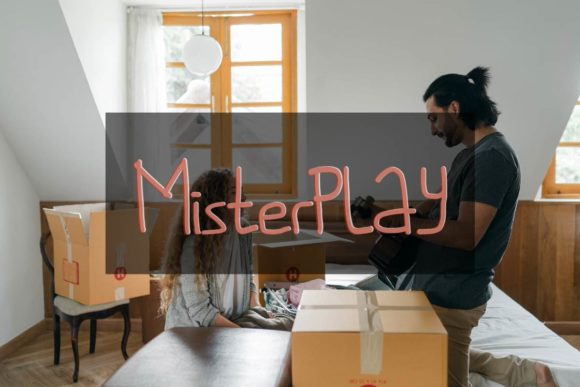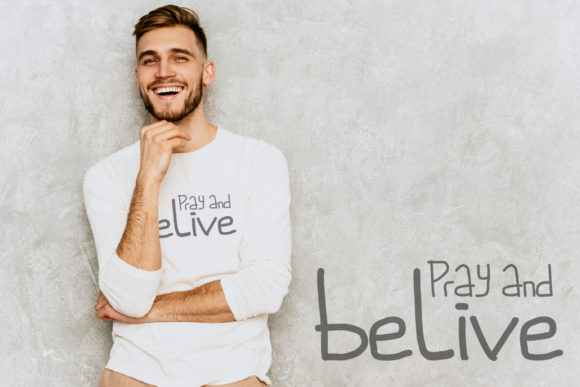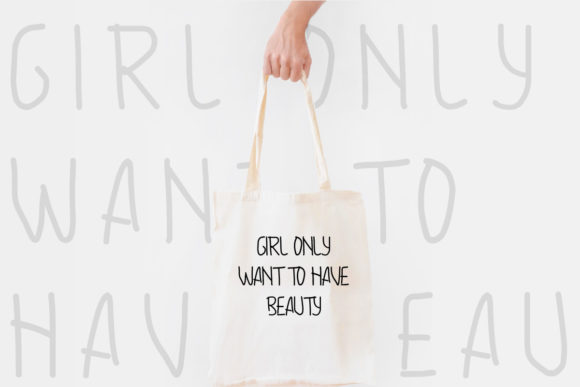
Introduction to Misterplay Font
Misterplay is a cute and simple lettered handwritten font that can be used for all chalkboard quotes or teaching material.
Its authentic look will add a personal and realistic feel to your designs .
Misterplay Font offers exceptional quality and versatility, making it a valuable addition to your design toolkit. Whether you’re creating for personal projects or commercial use, Misterplay Font delivers professional results.